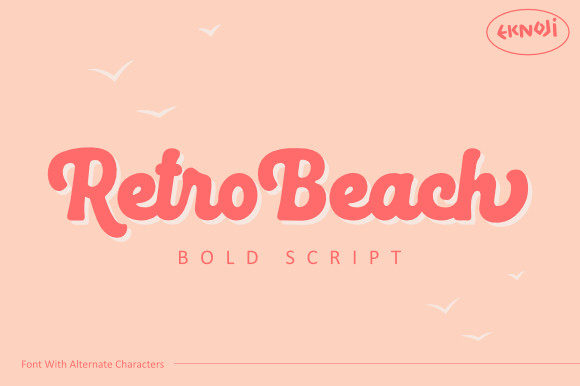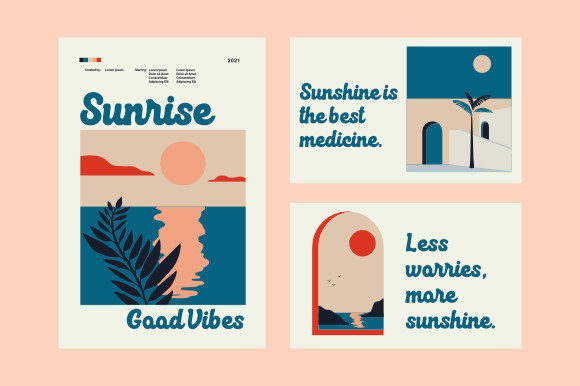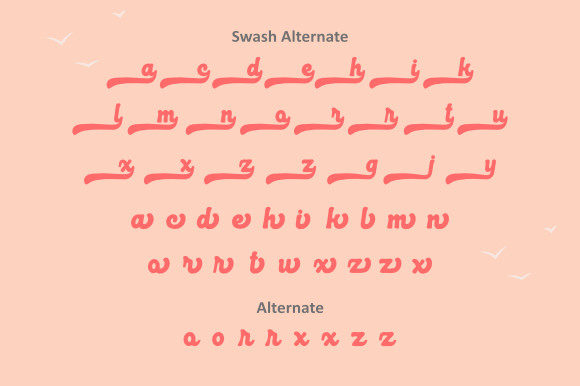
Retro Beach Font
Retro Beach is a chic and paint brushed handwritten font. This font is PUA encoded which means you can access all of the glyphs and swashes with ease!
Fall in love with its incredibly versatile style and use it to create spectacular designs!